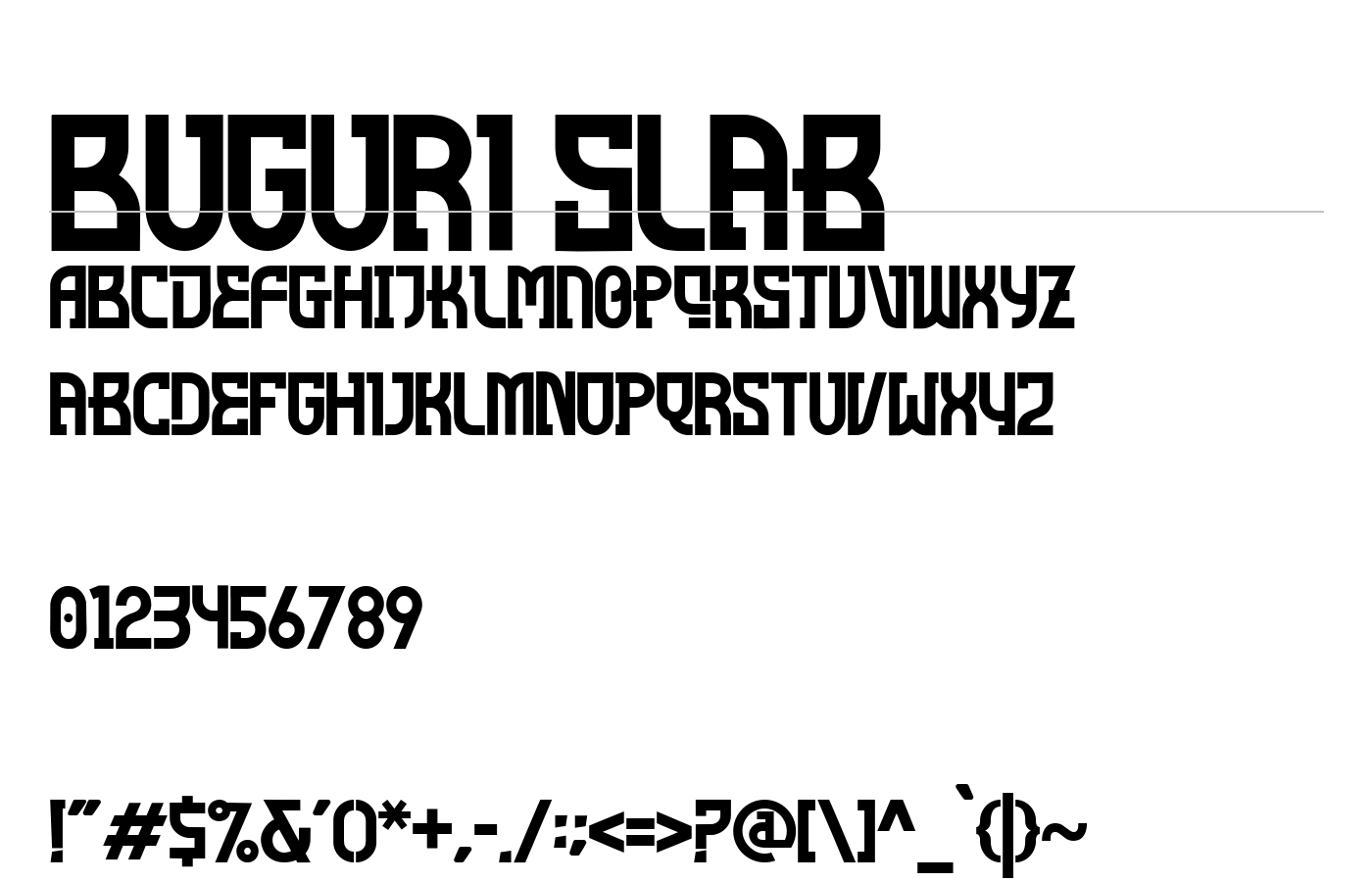
Buguri Slab is a bold, condensed slab serif font with a distinctive geometric and modern style, featuring strong, blocky serifs and sharp angular cuts that give it a unique, futuristic vibe. Its high contrast between thick strokes and tight letter spacing makes it ideal for impactful headlines, logos, and branding projects seeking a bold, edgy personality. This font works especially well in creative, urban, and tech-oriented designs where a strong visual presence is key.
Buguri Slab Font
About Buguri Slab Font
| Font family | Buguri Slab Font |
| Category | Slab-serif |
| Designer | Jarnawi Saja |